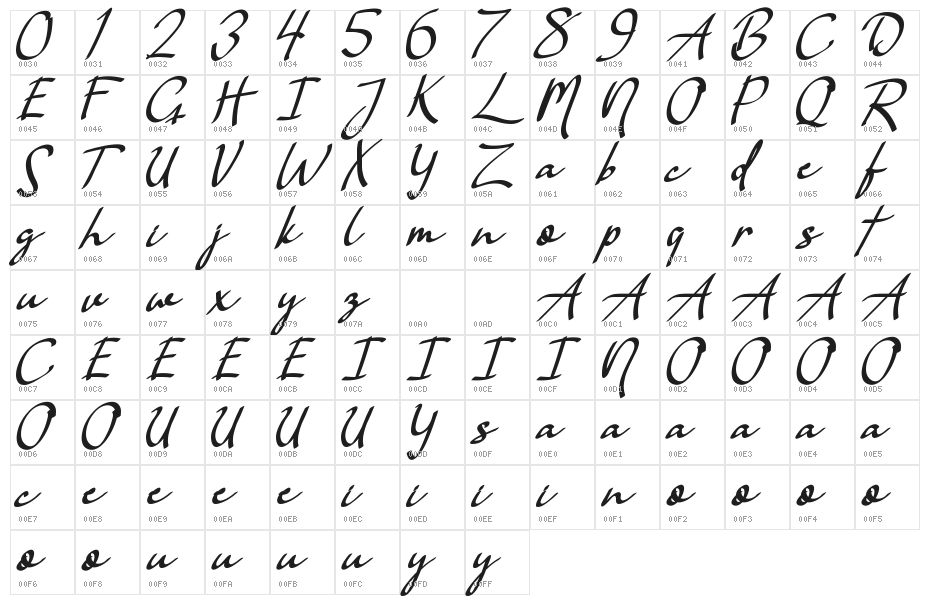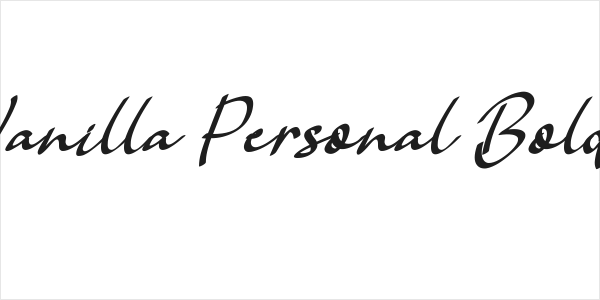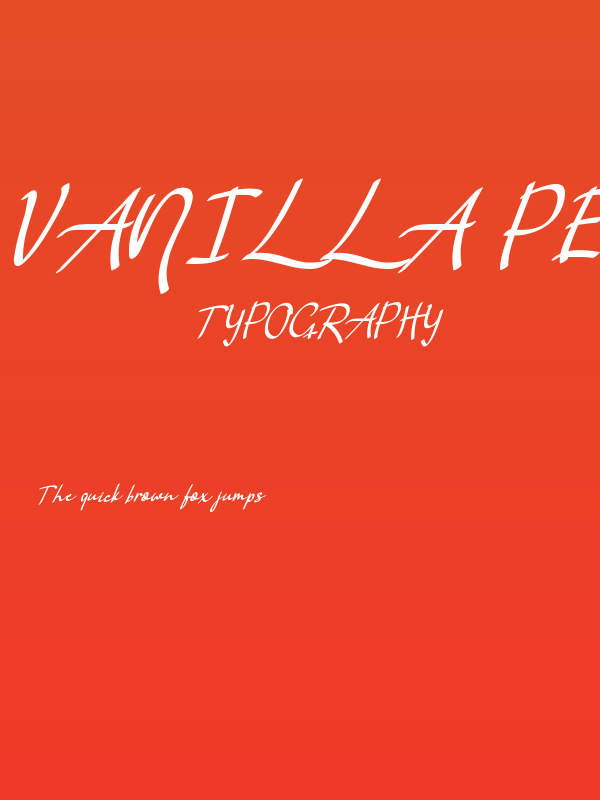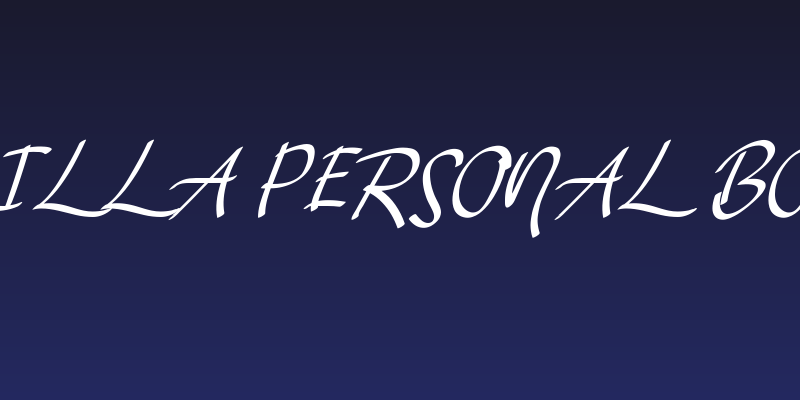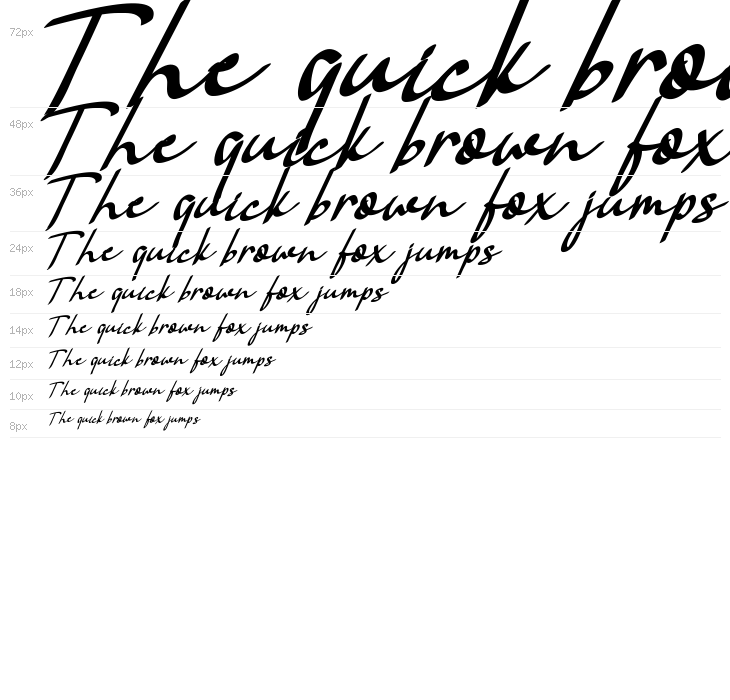
Vanilla Personal Bold Font
Vanilla Personal Bold Description
This font features a bold and expressive script style, characterized by its fluid and dynamic strokes. The letters are interconnected, creating a sense of continuity and flow, reminiscent of elegant handwriting. The uppercase letters exhibit a graceful flair, while the lowercase letters maintain a consistent rhythm. The numerals are designed with the same fluidity, ensuring a cohesive look across all characters. This font's boldness adds a striking presence, making it suitable for impactful designs.